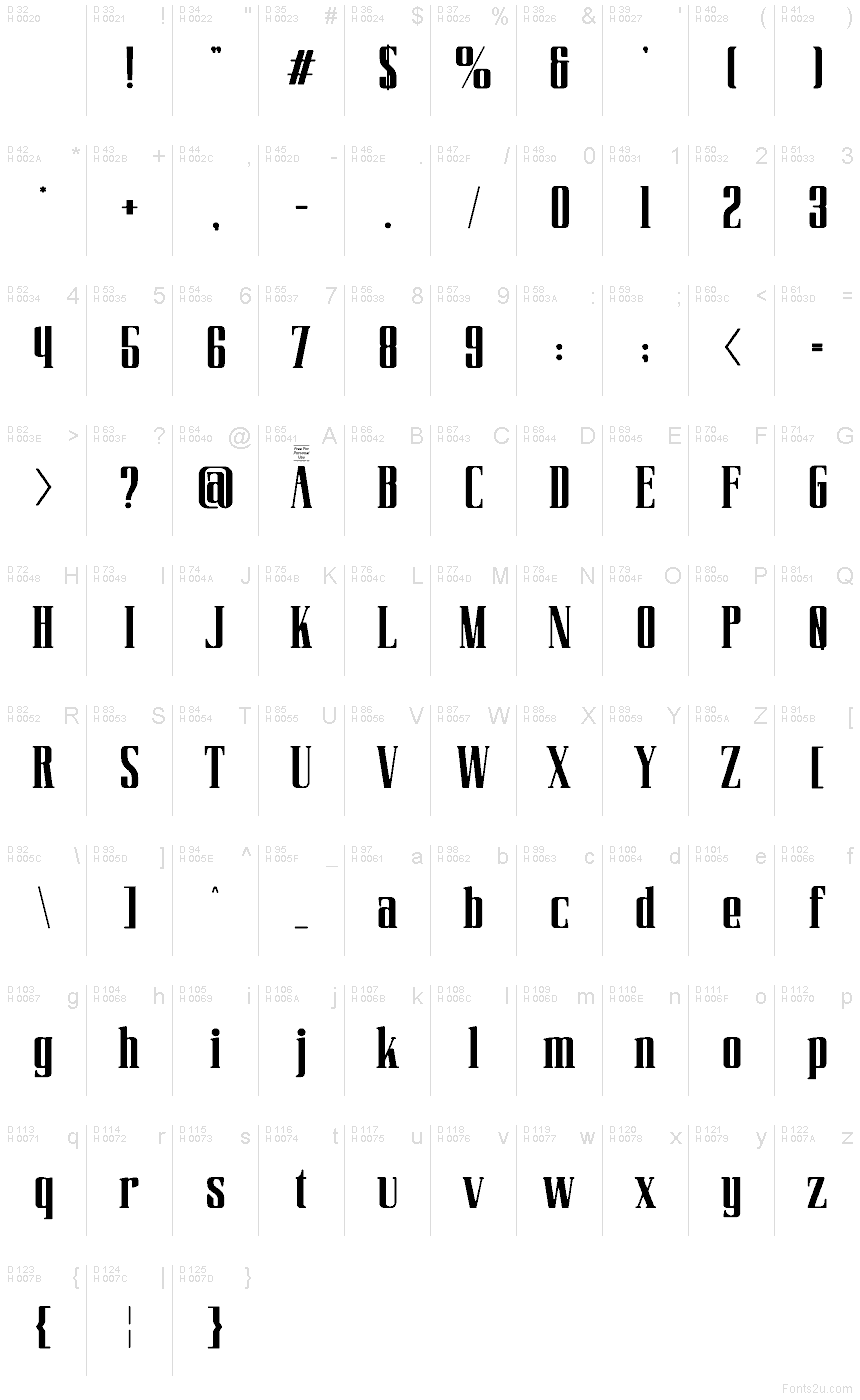
Ploker
Ploker font by Ermedia Studio is a free serif display font. Built around chunky verticals and chiseled cuts, it feels both carved and inky—like a letterpress poster pulled fresh from the press. The squared curves and blocky serifs lock together with a sturdy rhythm, giving headlines a bold, architectural presence without losing warmth.
Using Ploker, titles snap to attention on posters, vintage branding, beverage labels, book covers, gig flyers, and bold website hero text. This free font shines when set large, where its scooped details and tight weight do the talking. Pair it with a clean geometric sans for body copy or captions to let Ploker’s sculpted forms take center stage.